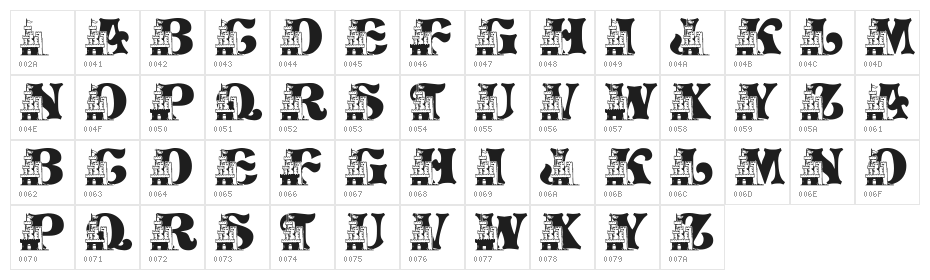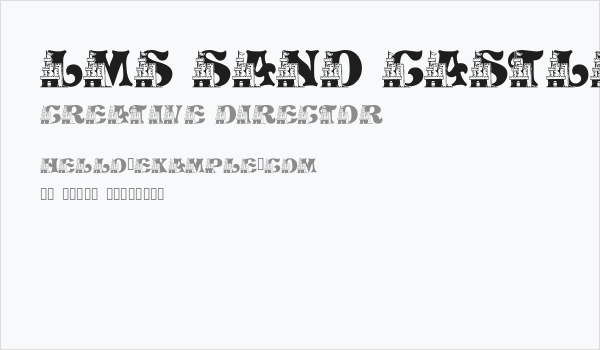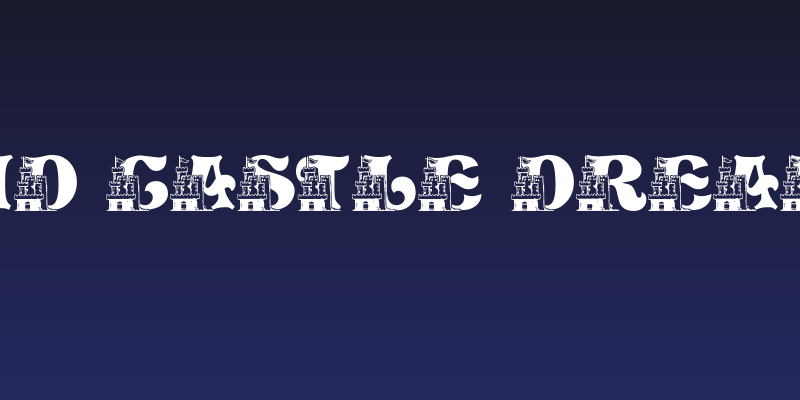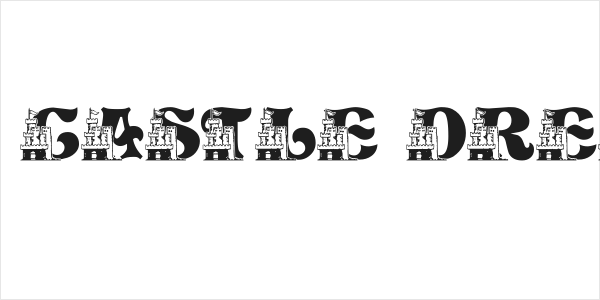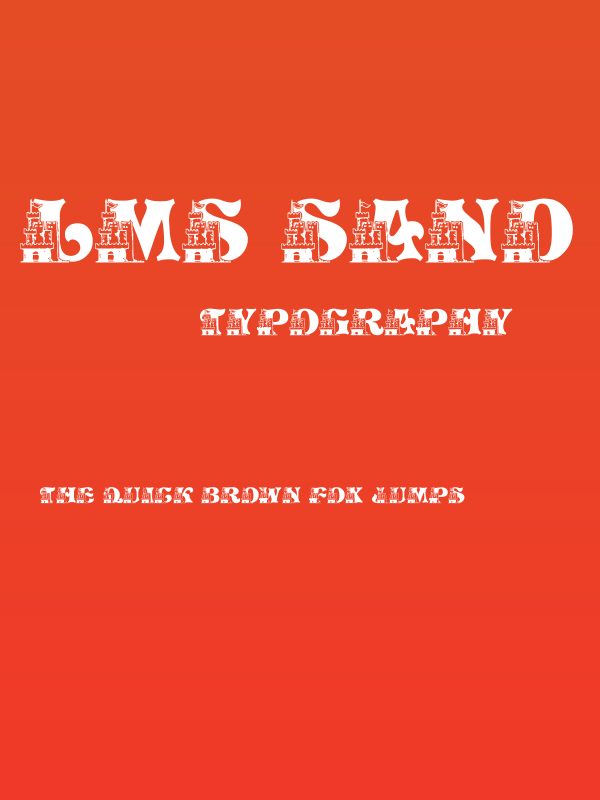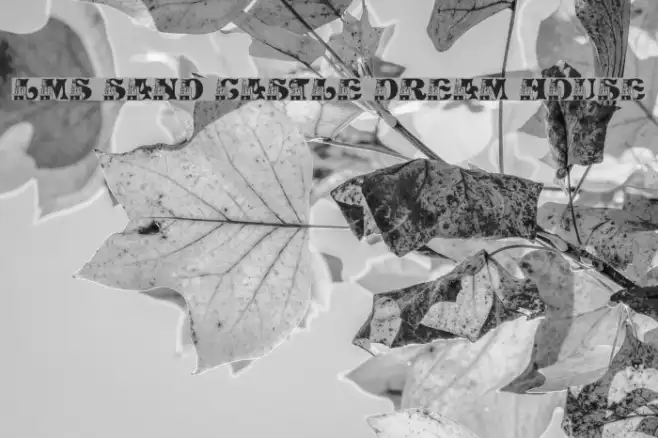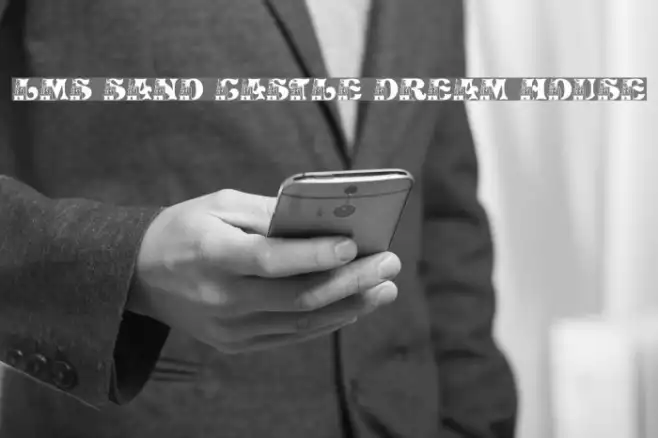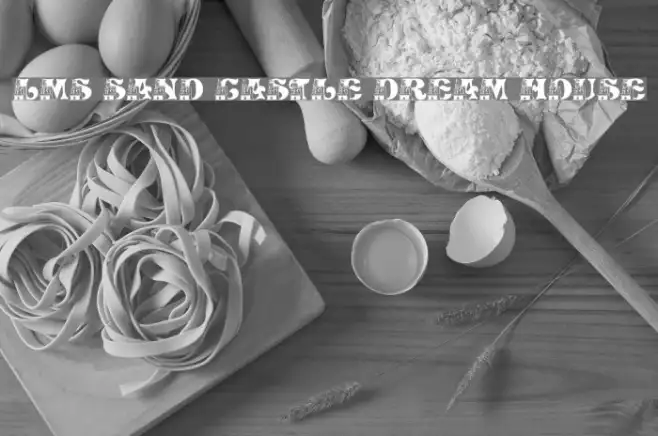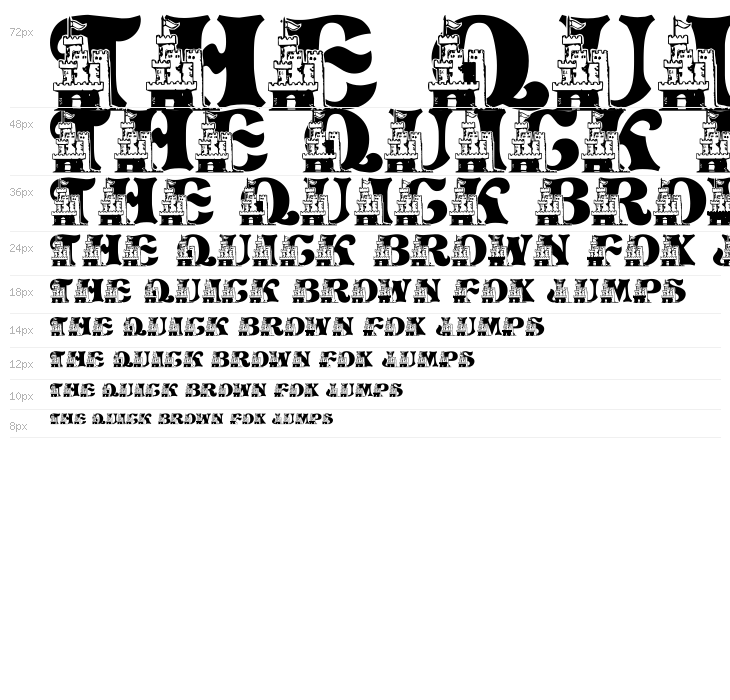
LMS Sand Castle Dream House Font
LMS Sand Castle Dream House Description
This font features a whimsical and playful design, incorporating elements of sandcastles into each letter. The characters are adorned with intricate castle motifs, creating a unique and decorative appearance. The font is highly detailed, with each letter resembling a miniature architectural structure. This style is ideal for projects that aim to evoke a sense of fun, creativity, and imagination. The bold and elaborate design makes it suitable for eye-catching displays and thematic presentations.
| Proposed Projects | Ideal for children's book covers, beach-themed event posters, playful branding, and creative invitations. |